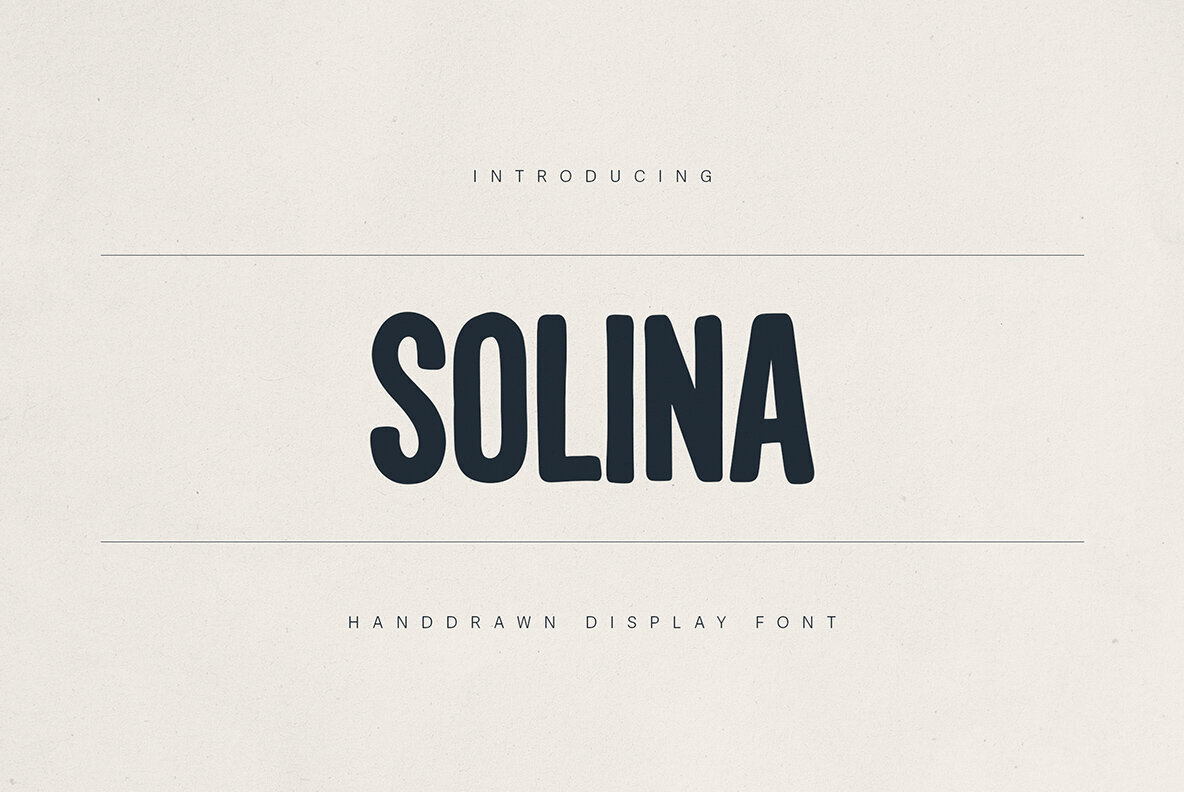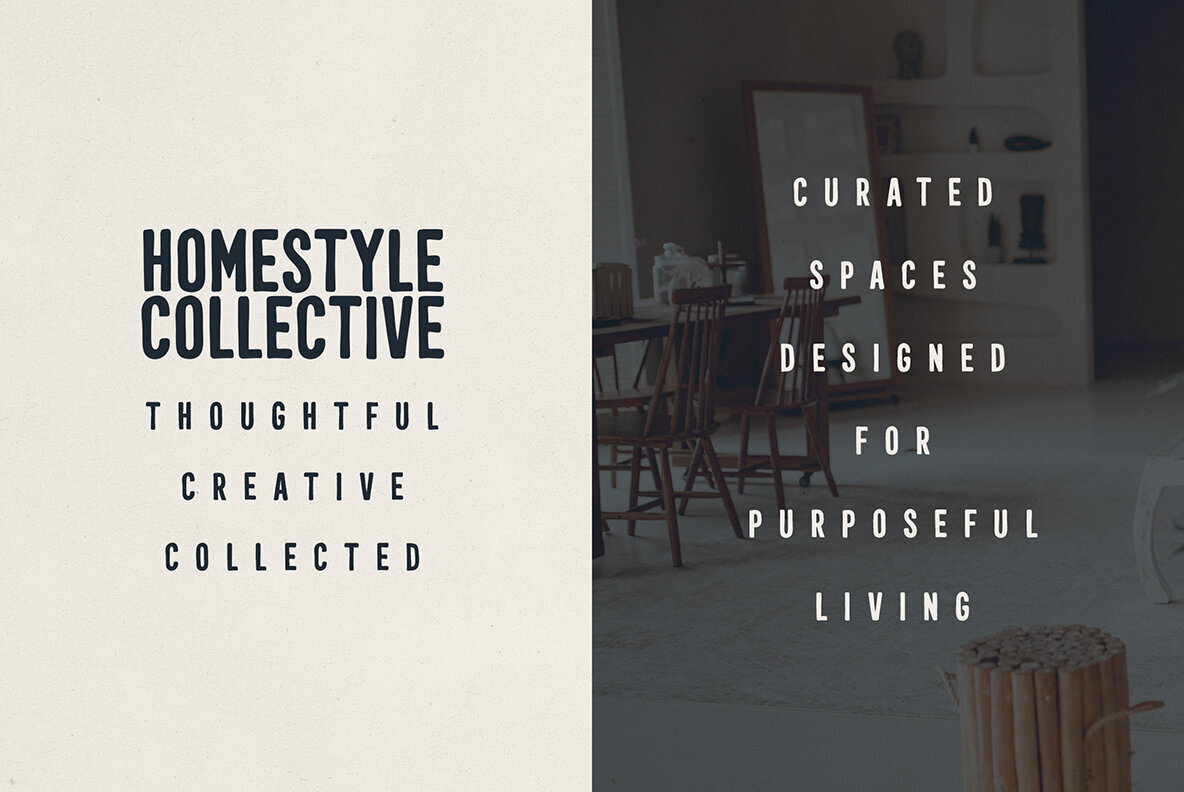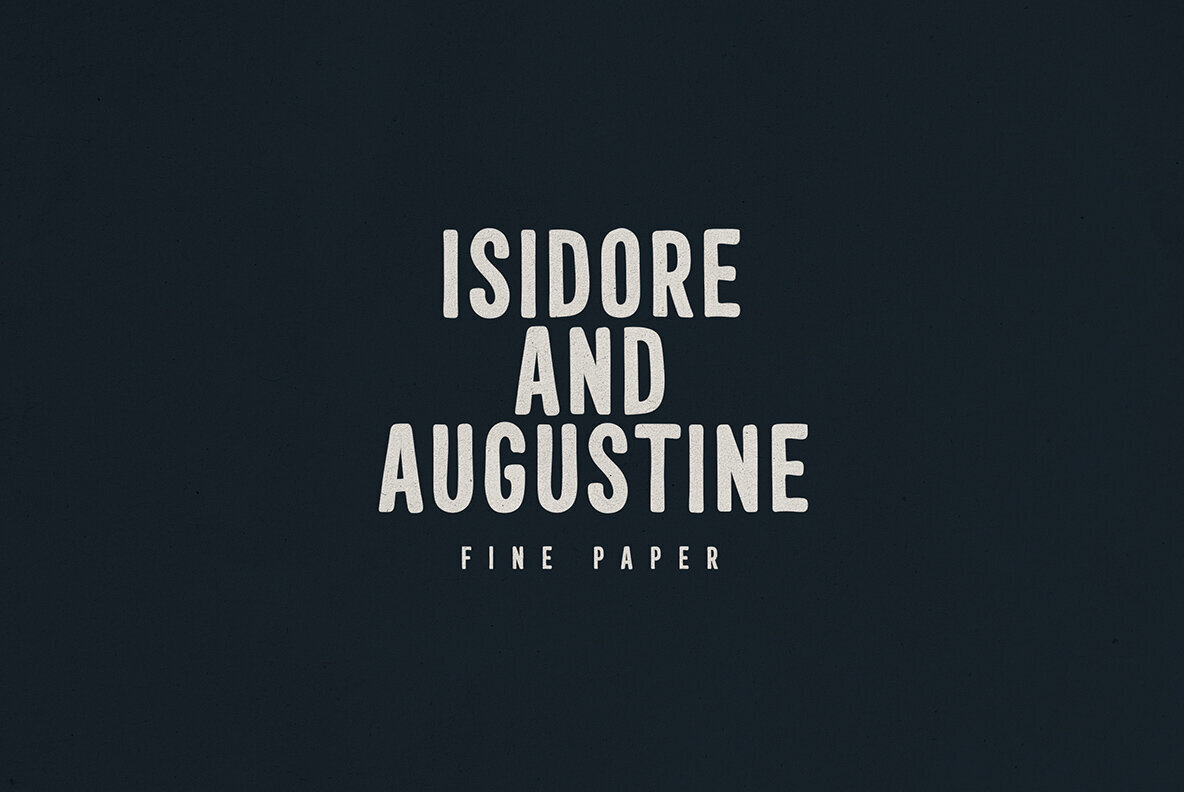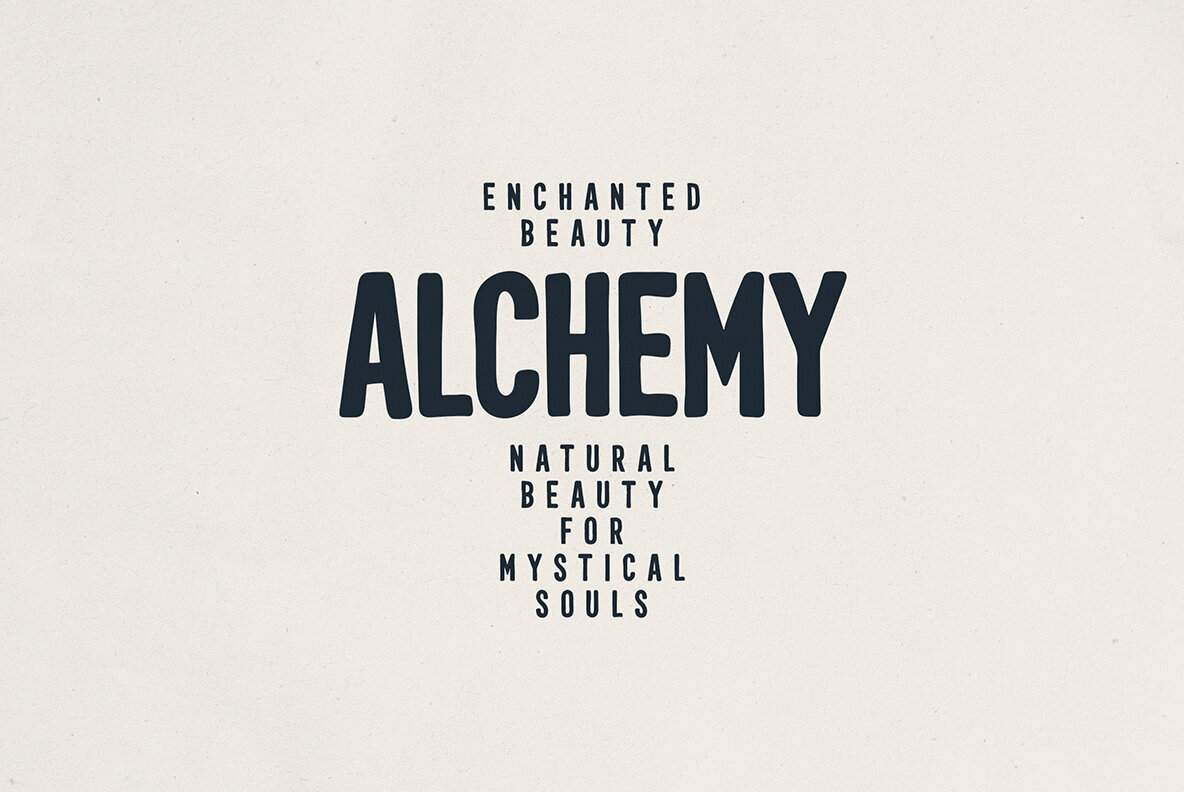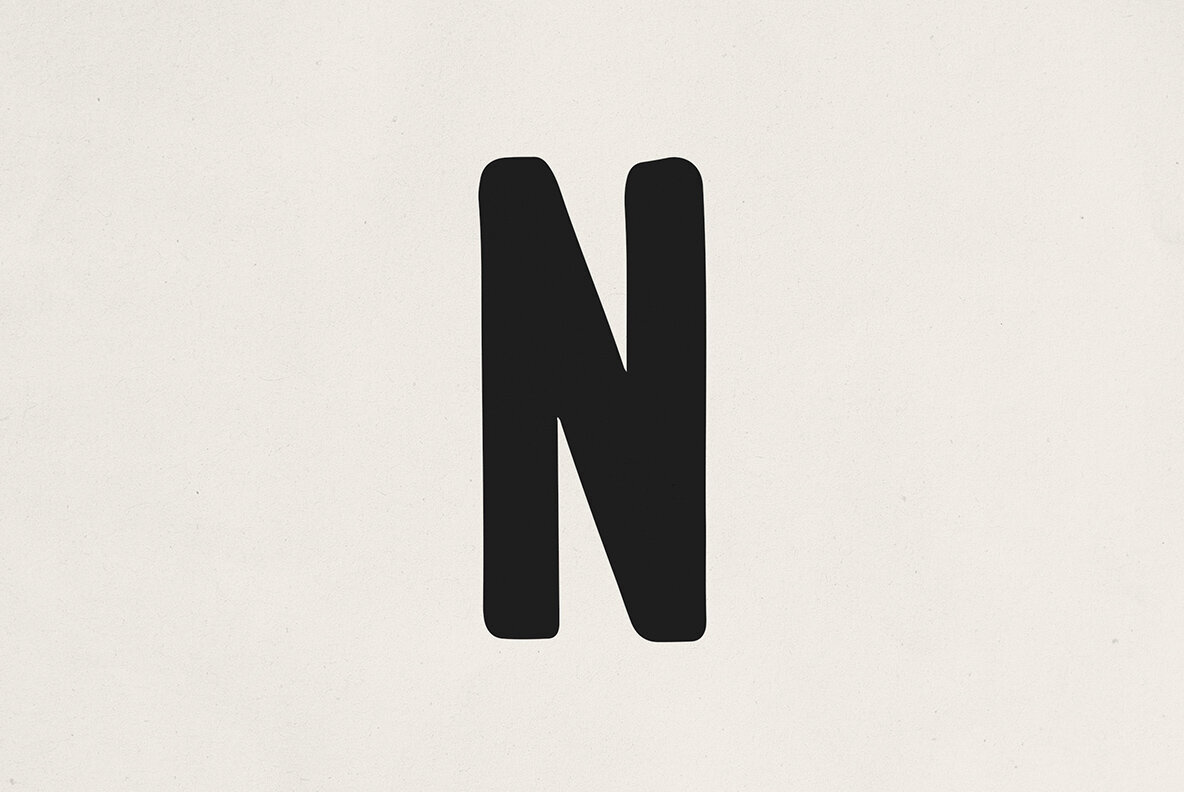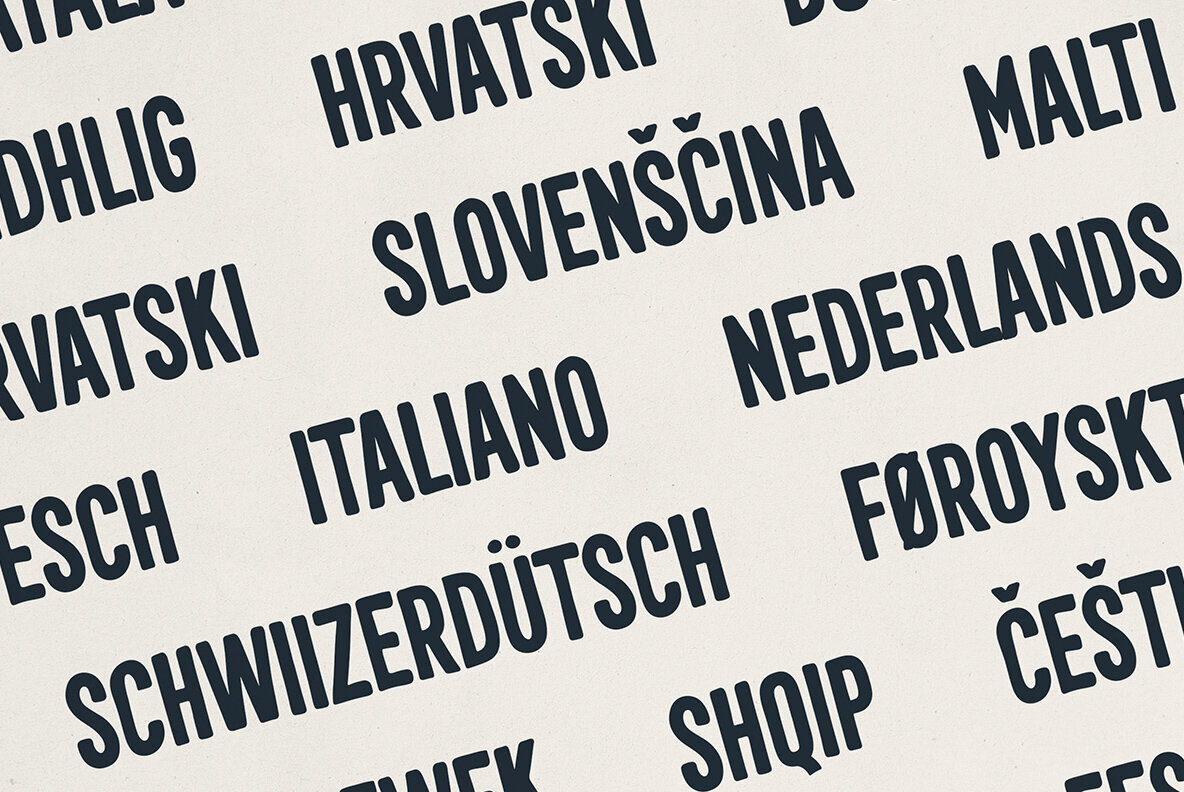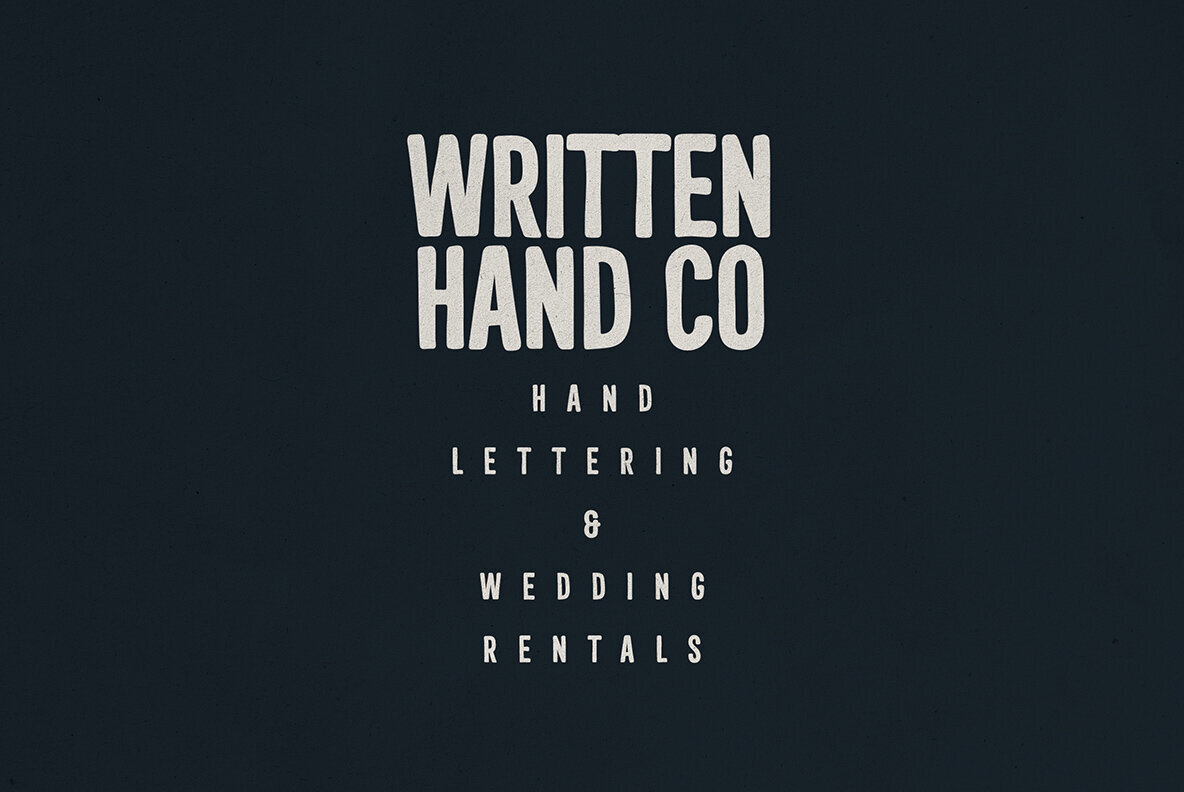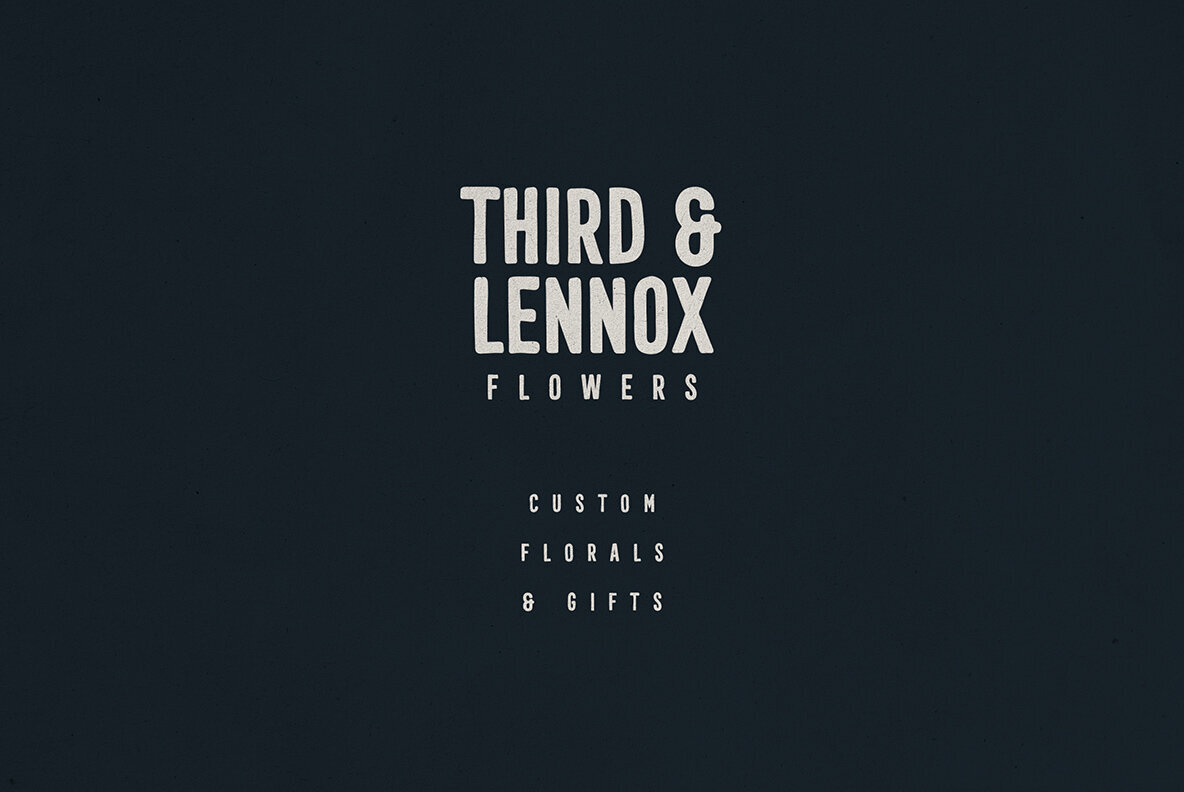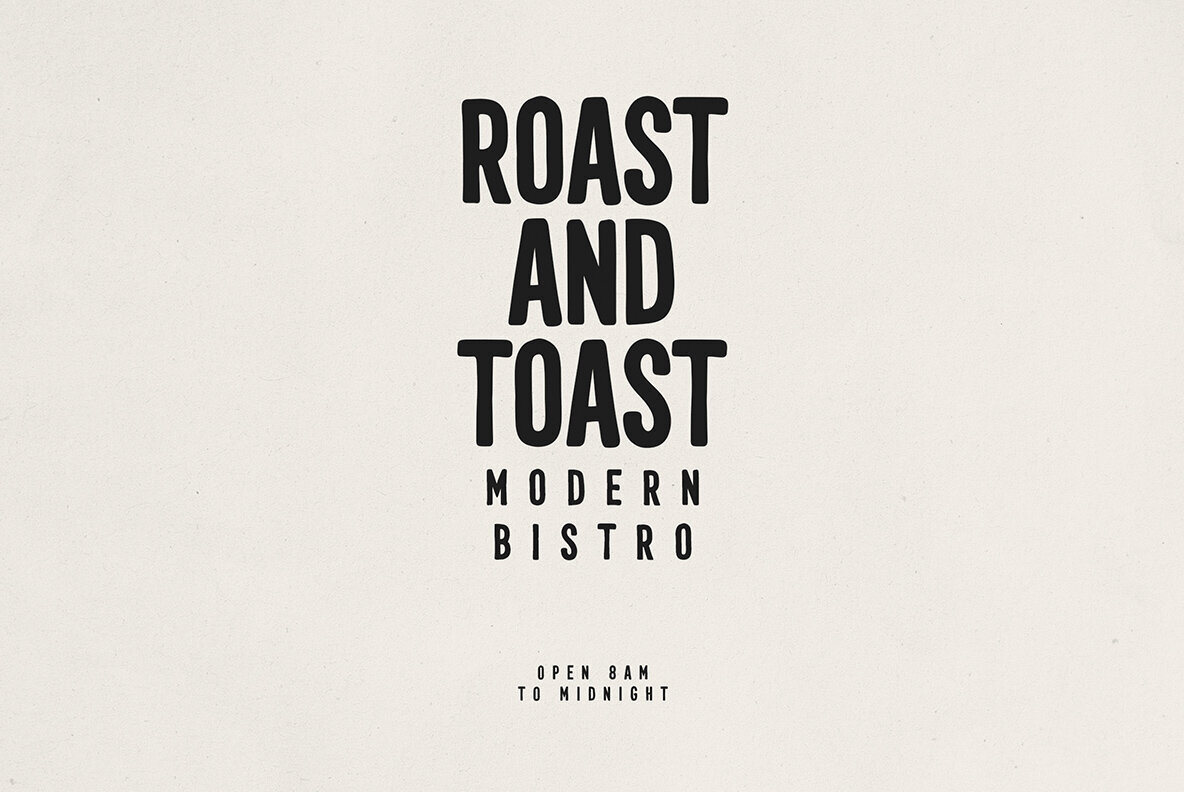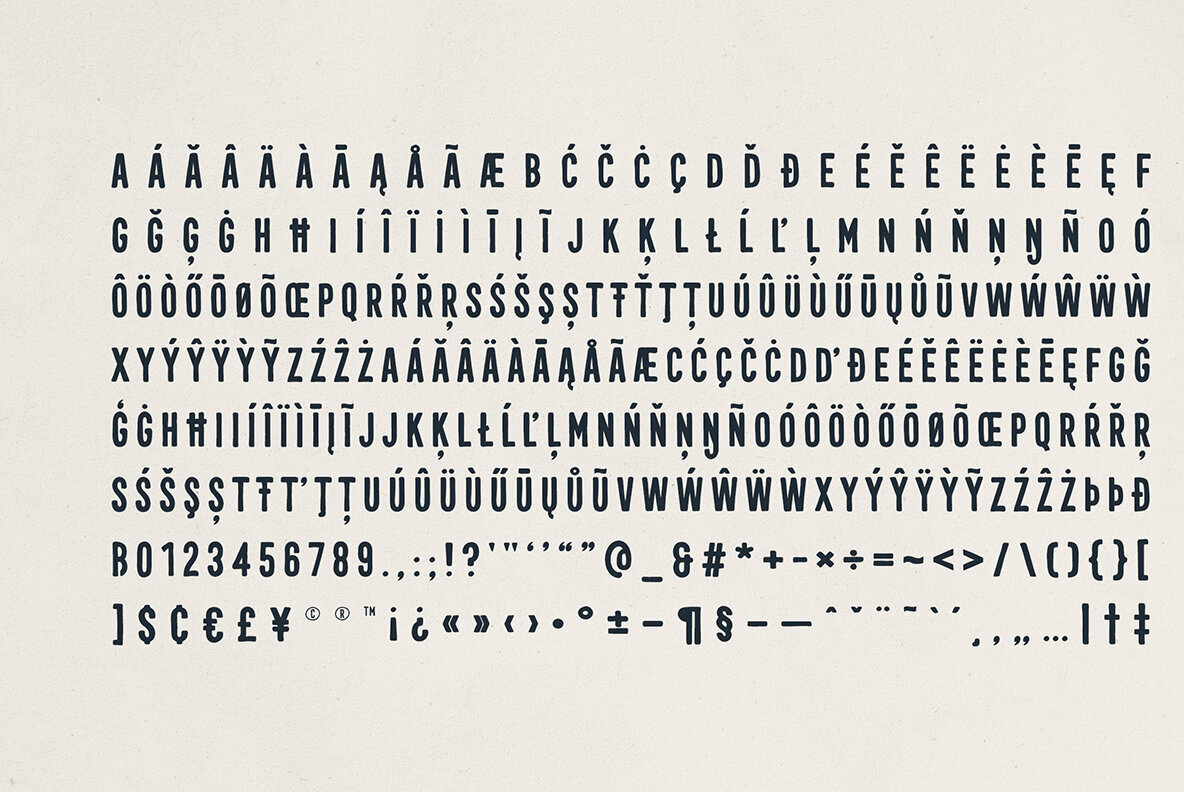
Solina Font
Solina Regular
Capture the charm and versatility of Solina, a handdrawn display font that perfectly blends vintage warmth with modern sophistication. With its rounded edges and tall, bold proportions, Solina infuses projects with authenticity and style. This organic yet clean typeface is an excellent choice for creatives seeking to give their designs a personal touch. Solina's uppercase-only design and extensive multilingual support make it the ideal companion for various applications. Whether it's for home decor branding, boutique packaging, editorial headlines, or bistro menus, Solina stands out beautifully. Its balanced mix of readability and character ensures your work remains memorable. Designed to make your projects shine, Solina is the go-to font for anything from branding to event signage, where personality and clarity are paramount.Solina Handdrawn Display Font